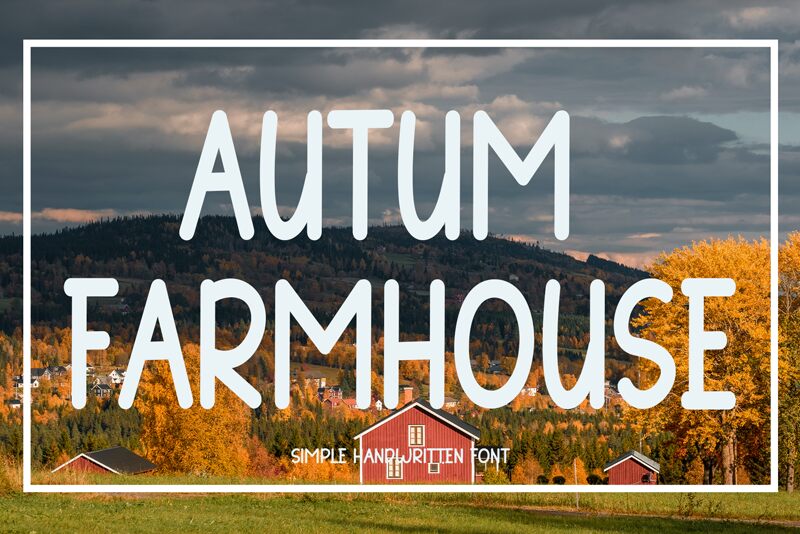
Autum Farmhouse
Autum Farmhouse emerges as a charming handwritten font meticulously crafted by Etik Fatimah. With its fluid, organic curves and delightful irregularities, this font exudes a warm, rustic appeal that captures the essence of artisanal craftsmanship. The personal touch inherent in its design lends an inviting and approachable feel to any project it graces.
The aesthetic appeal of Autum Farmhouse lies in its balance between legibility and character. Each letter boasts a unique personality, yet the typeface remains cohesive and harmonious, making it not only beautiful but also functional for various applications. Its casual elegance is particularly well-suited for branding, packaging, and editorial work where a handmade impression is desired.
From the cozy corner café menu to the labels on a boutique's latest collection, Autum Farmhouse offers designers a versatile tool to inject authenticity and personality into their creations. Its suitability spans digital graphics to print media, ensuring that your message is conveyed with both style and substance.